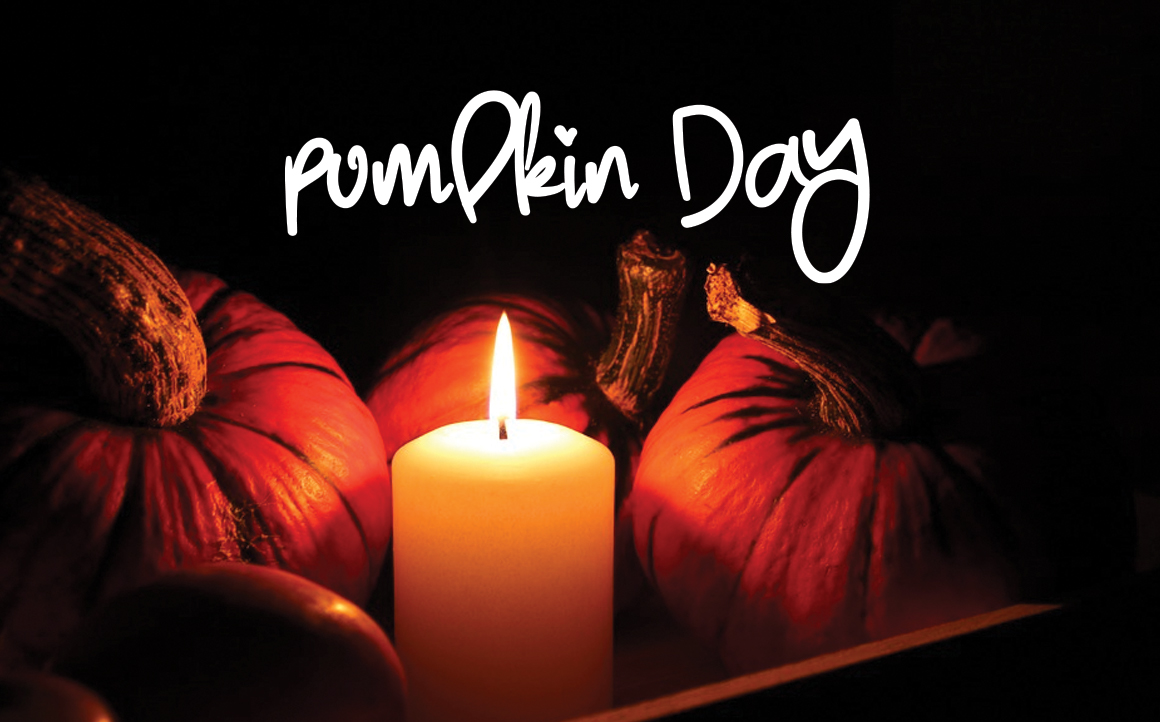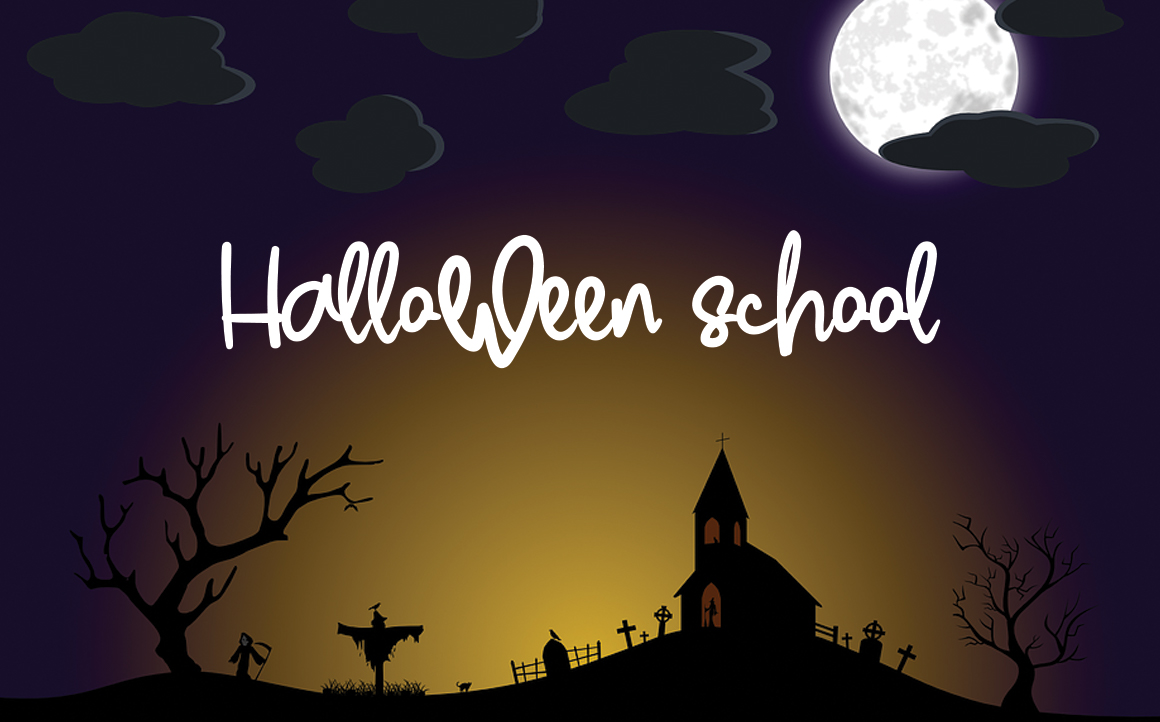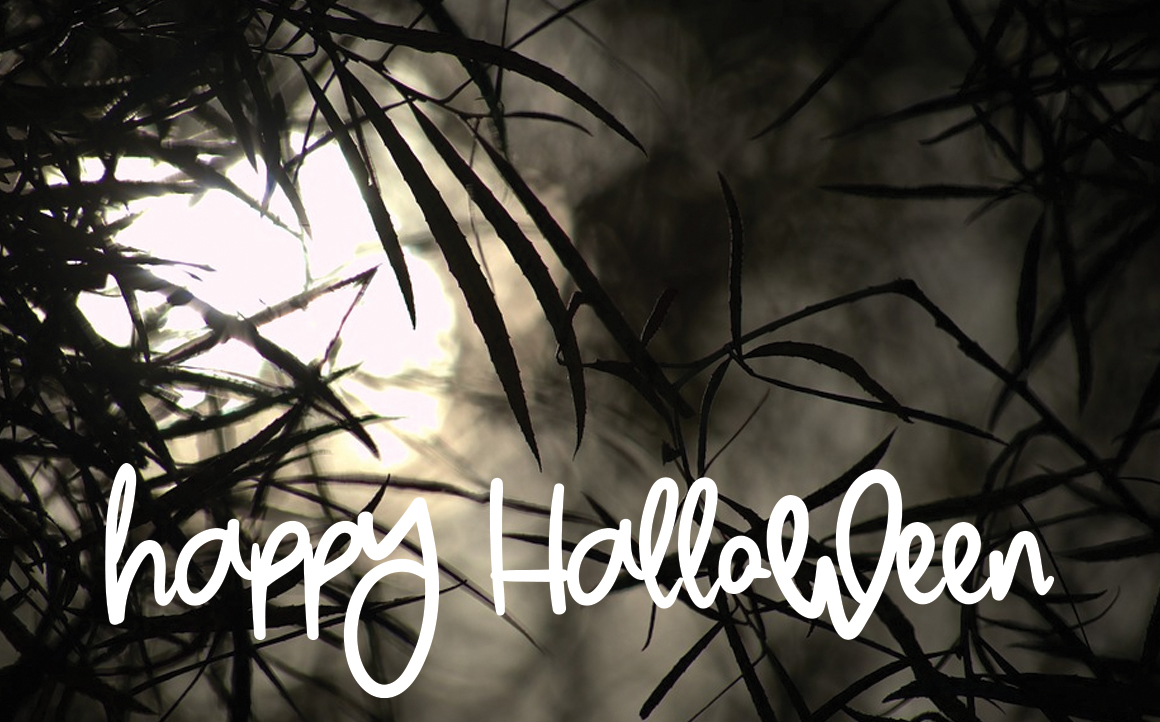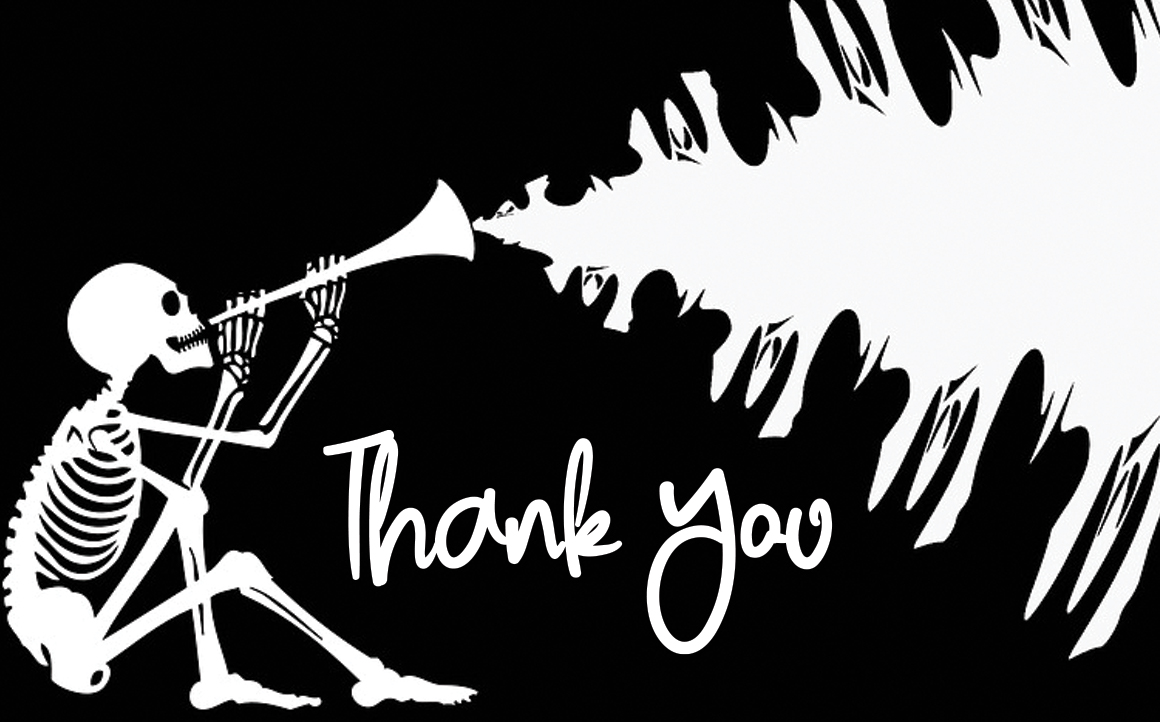
Stay With Handwritten Font
This is a unique, fun and friendly handwritten font. Whether you’re looking for a font for Instagram or a calligraphy script for a DIY project, this font will turn any creative idea into a true work of art!